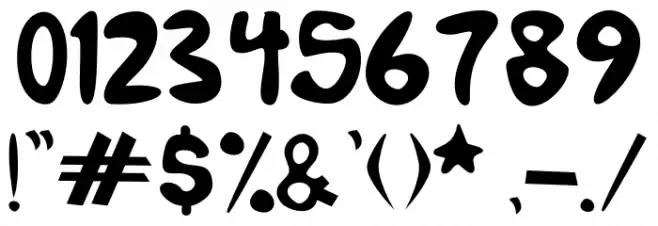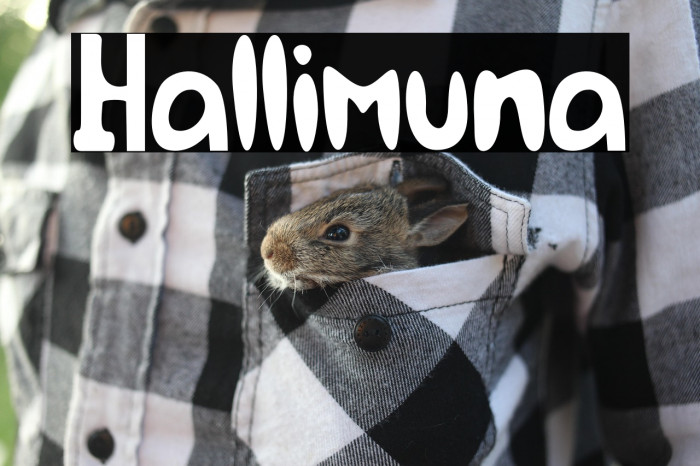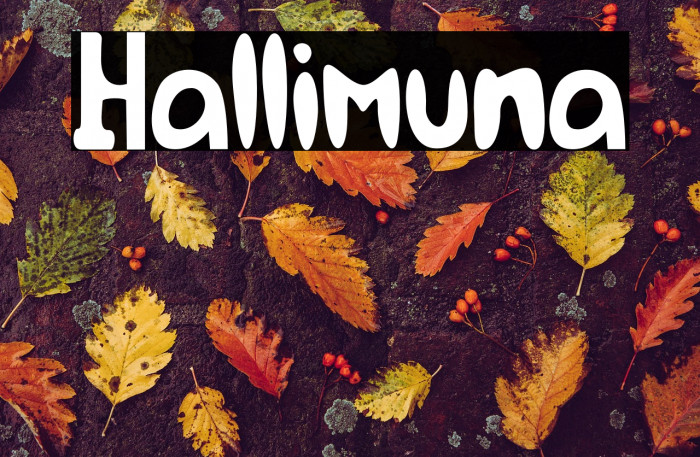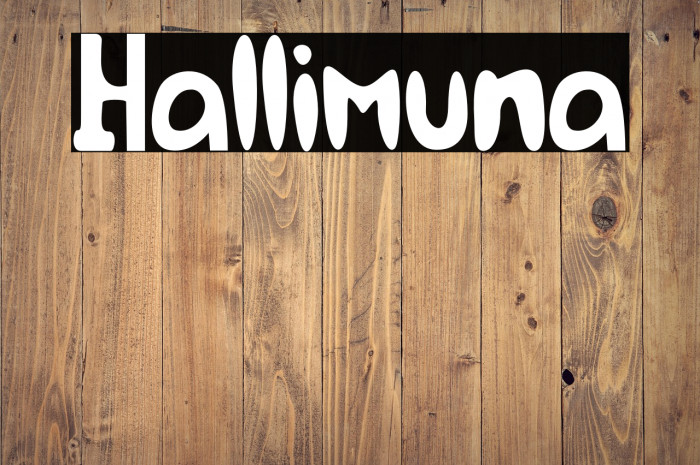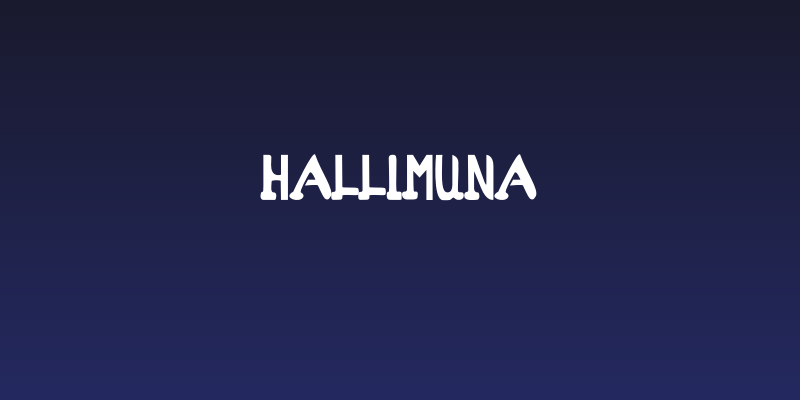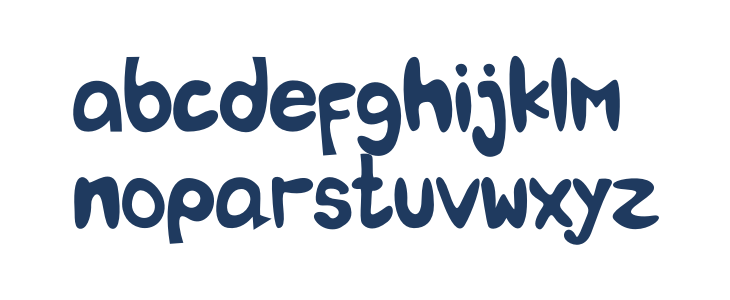
Hallimuna Font
Hallimuna Description
This font features a playful and bold design with a unique, whimsical character. The letters are rounded and have a hand-drawn feel, giving them a lively and dynamic appearance. The uppercase and lowercase letters maintain a consistent style, with exaggerated curves and a slightly irregular baseline that adds to the font's charm. The numbers and special characters follow the same playful aesthetic, making the font suitable for creative and informal projects. Its boldness ensures high visibility, making it ideal for eye-catching designs.
| Proposed Projects | Ideal for children's books, playful branding, posters, and creative invitations. |